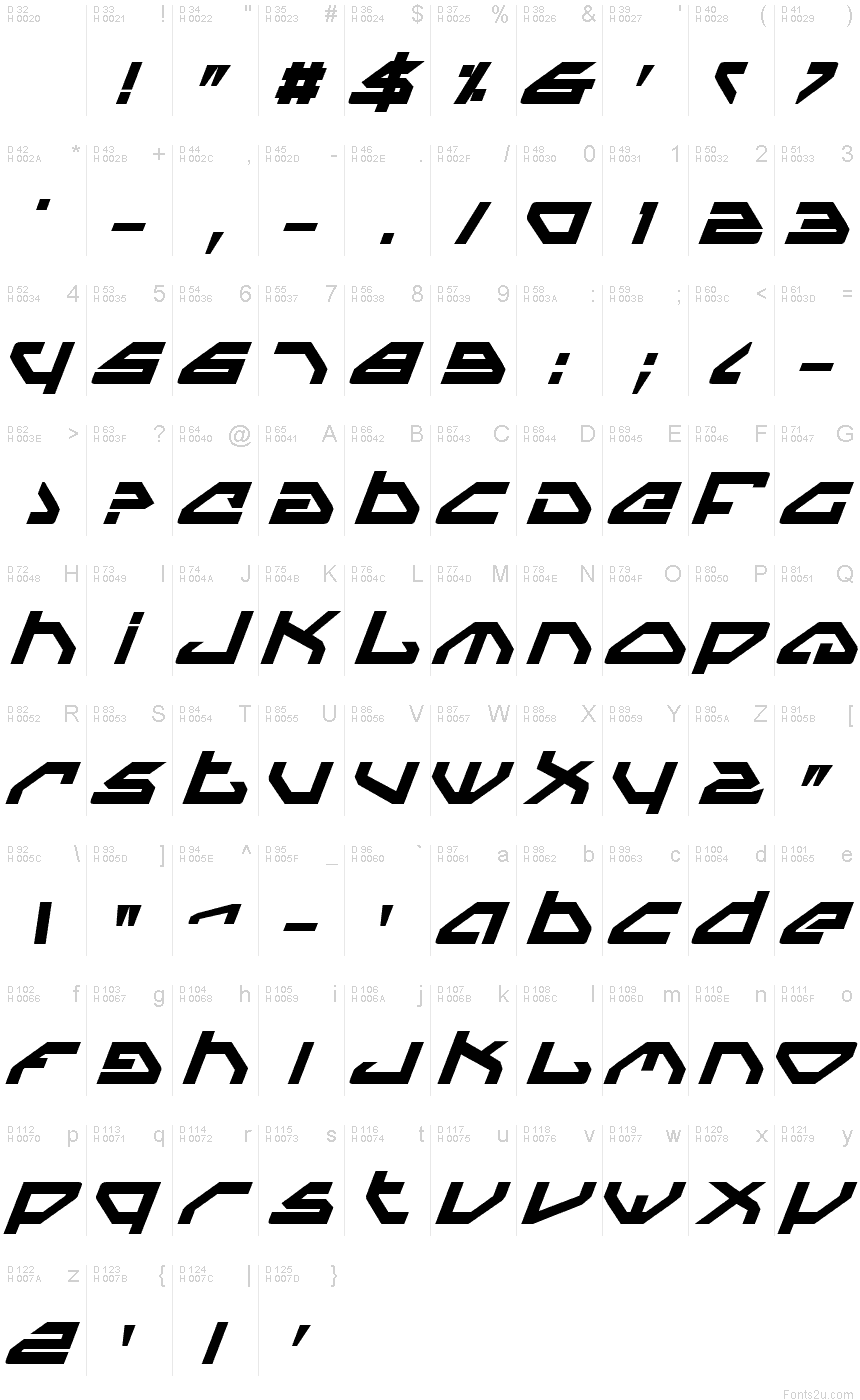
Spylord Bold Italic
Spylord, from Iconian Fonts, is a free futuristic caps display font with a sharp, covert-tech attitude. The letters are cut into low, fast shapes with heavy diagonals, clipped corners, and angular openings that make the font feel like sci-fi hardware or a spy title sequence from the early 2000s.
It fits naturally in game logos, movie-style title cards, poster headlines, tech event branding, and cover lines where short words need a controlled sense of motion. As a free font, Spylord also suits monograms and interface-flavored graphics, because the caps lock together into compact, directional silhouettes rather than reading like ordinary block lettering.